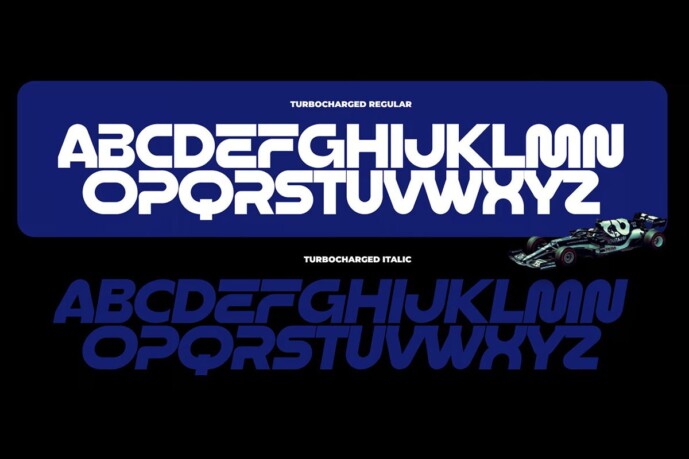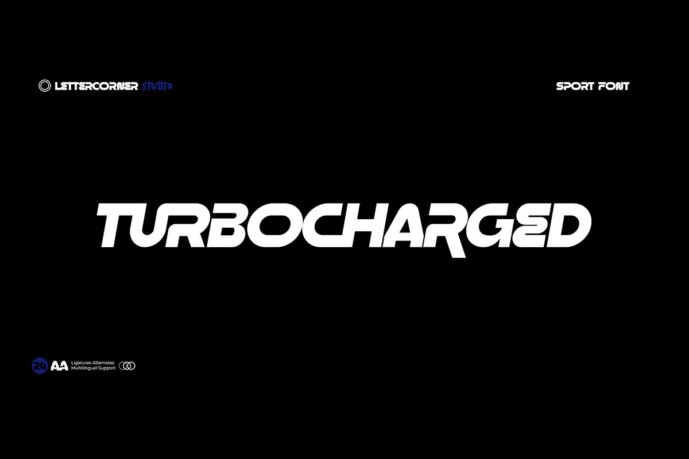
Turbocharged Font
Turbocharged Font, Inspired by Formula 1, the typeface of the future. With its sleek, ultramodern design, Ethnocentric is perfect for those looking to inject a high-tech feel into their projects. The outstretched pod forms of this accelerated font suggest rapid horizontal movement, making it the ideal choice for anything from tech blogs to cutting-edge product labels.
But what sets Turbocharged apart from other typefaces is its non-traditional, scientific sensibility. Sharp diagonal cuts and anomalistic gaps inject your words with a sense of experimentation and innovation, perfect for companies on the cutting edge of technology.
If you prefer a more rounded style, be sure to check out Turbocharged typeface. But if you’re looking for something with a bit more edge, Turbocharged is the perfect choice. With six weights and italics available, you’ll have all the versatility you need to make your project stand out from the crowd.